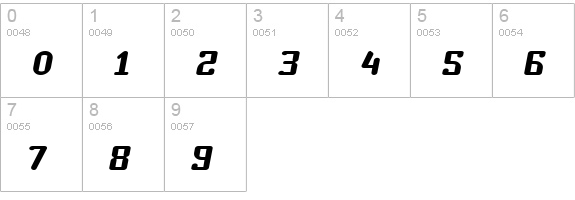
Youthanasia Italic Font Details
Youthanasia Italic is a distinctive, italic variant in the Youthanasia typeface family \xE2\x80\x94 well suited to design and typography projects.
Youthanasia Italic font is a sleek and modern typeface that exudes elegance and sophistication. Its stylish italic design adds a touch of flair to any project, making it perfect for adding a contemporary twist to your designs. The fluid curves and sharp angles of this font create a dynamic and eye-catching look that will make your text stand out. Best of all, Youthanasia Italic font is available for free to download at FontsMarket.com. Whether you're working on a branding project, a website design, or any other creative endeavor, this font is sure to elevate your work to the next level. Don't miss out on the opportunity to enhance your designs with the stunning Youthanasia Italic font – download it now and start creating something truly special.